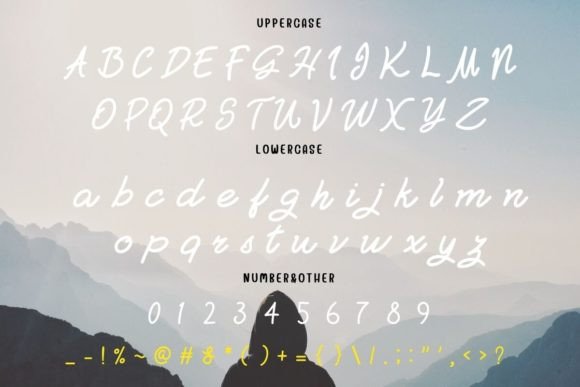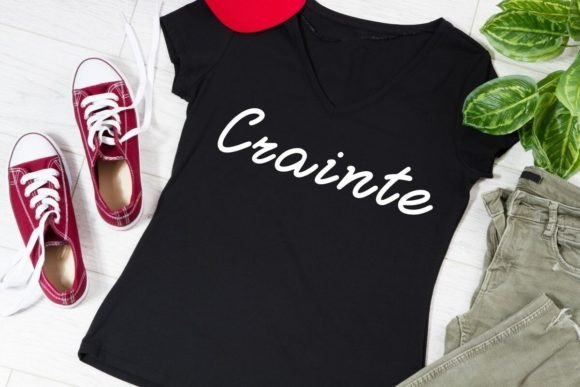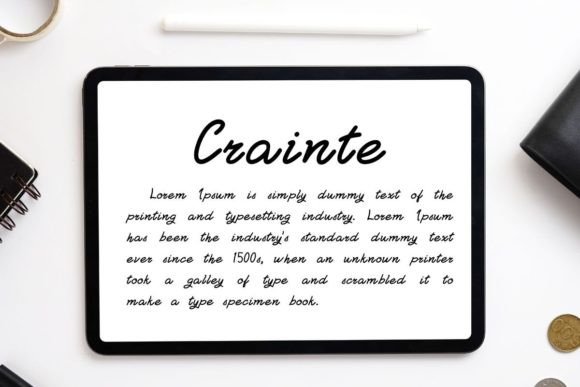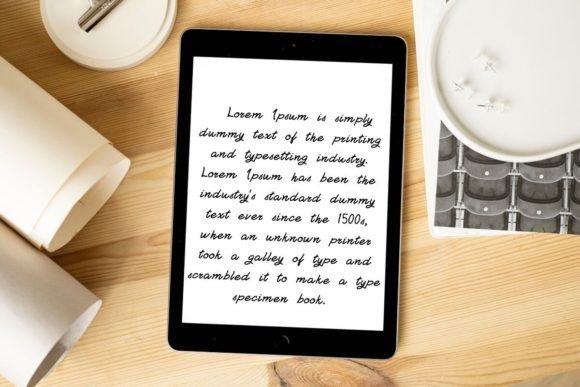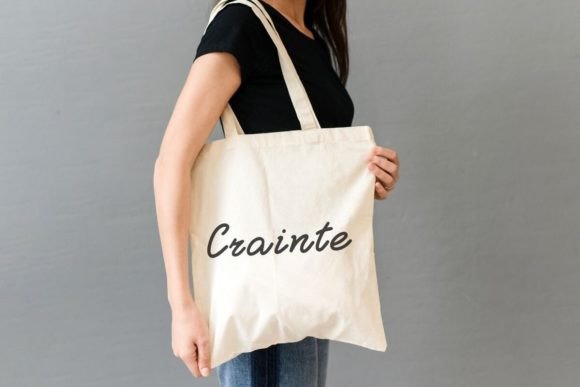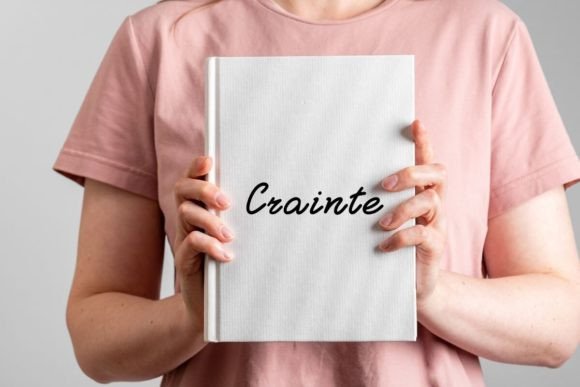
Crainte Font: Elevate Your Designs with Elegance and Style
In the world of typography, fonts play a crucial role in conveying the tone and aesthetic of a design. For those seeking a touch of elegance and refinement, Crainte Font is an exceptional choice. This beautiful and stylish script & handwritten font is specifically designed to add a dash of sophistication to any project, making it perfect for a wide range of applications.
The Beauty of Crainte Font
Crainte Font boasts graceful and fluid letterforms that exude a sense of beauty and refinement. Its elegant design makes it an ideal choice for projects that require a touch of luxury and sophistication. Whether you’re working on branding, invitations, or editorial design, Crainte Font is sure to impress.
Perfect for Beauty-Themed Designs
As its name suggests, Crainte Font is specially designed with beauty themes in mind. This font is perfect for various designs that require a cute and elegant touch, including:
- Beauty-themed designs
- Kids’ designs
- Birthday invitations
- Summer designs
- T-shirt designs
- Crafting
- Stickers
- Sublimation
Why Choose Crainte Font?
So, what sets Crainte Font apart from other fonts? Here are just a few reasons why designers and crafters love this beautiful font:
- Elegant and refined design: Crainte Font’s elegant design makes it perfect for projects that require a touch of sophistication.
- Versatile: This font can be used for a wide range of applications, from branding and invitations to editorial design and crafting.
- Cute and playful: Despite its elegance, Crainte Font still has a playful and cute side, making it perfect for kids’ designs and other projects that require a touch of whimsy.
How to Use Crainte Font
- Pair it with other fonts: Crainte Font pairs well with other fonts, so feel free to experiment with different combinations to find the perfect look for your project.
- Use it for headings and titles: Crainte Font’s elegant design makes it perfect for headings and titles, where you want to make a statement.
- Add a personal touch: Crainte Font’s handwritten feel makes it perfect for adding a personal touch to your designs.
| Font Name | Crainte Font |
| Author | Jan Jao studio |
In conclusion, Crainte Font is a beautiful and stylish script & handwritten font that is perfect for designers and crafters looking to add a touch of elegance and refinement to their projects. With its versatile design and wide range of applications, Crainte Font is sure to become a favorite in your font collection.